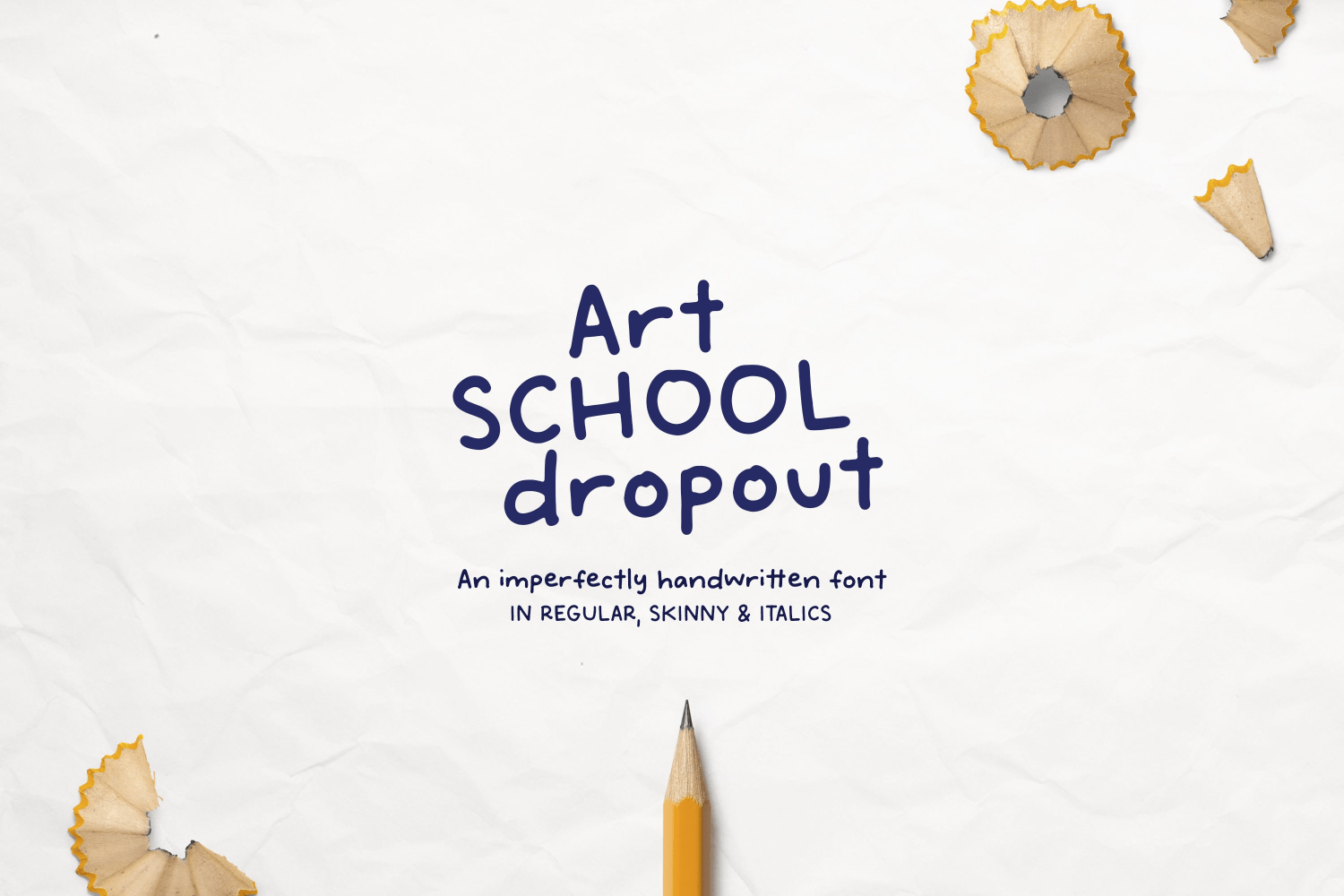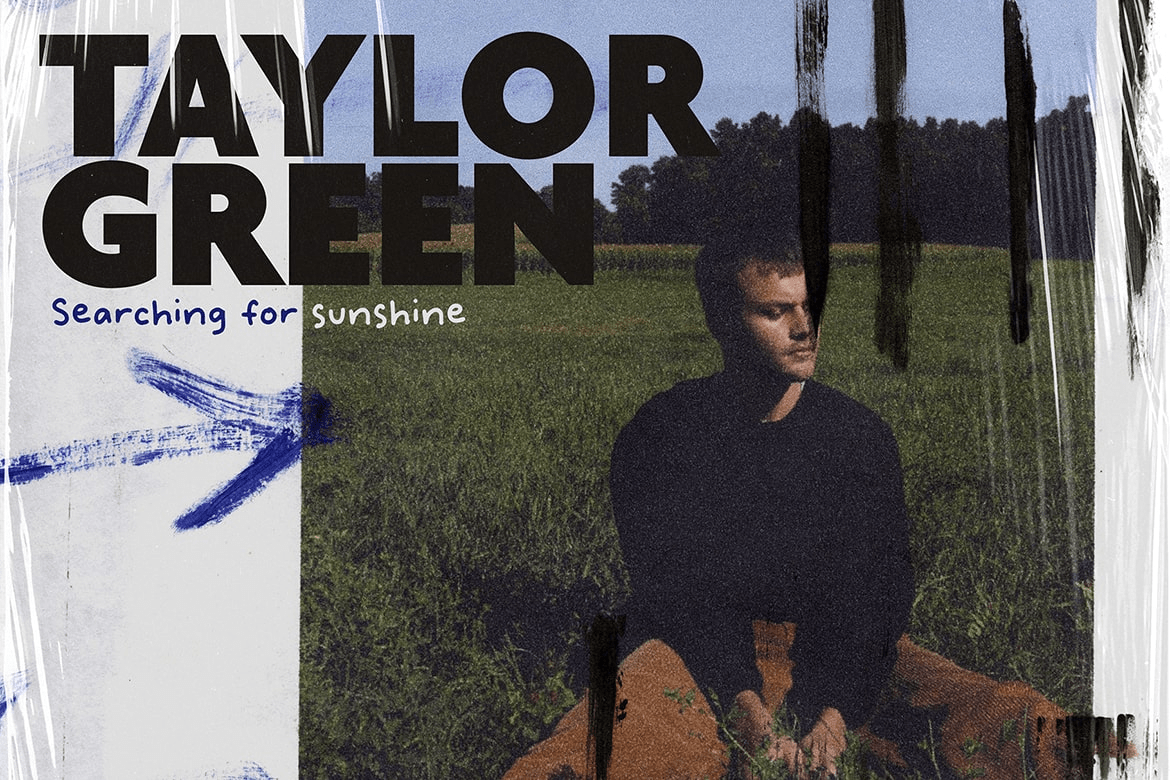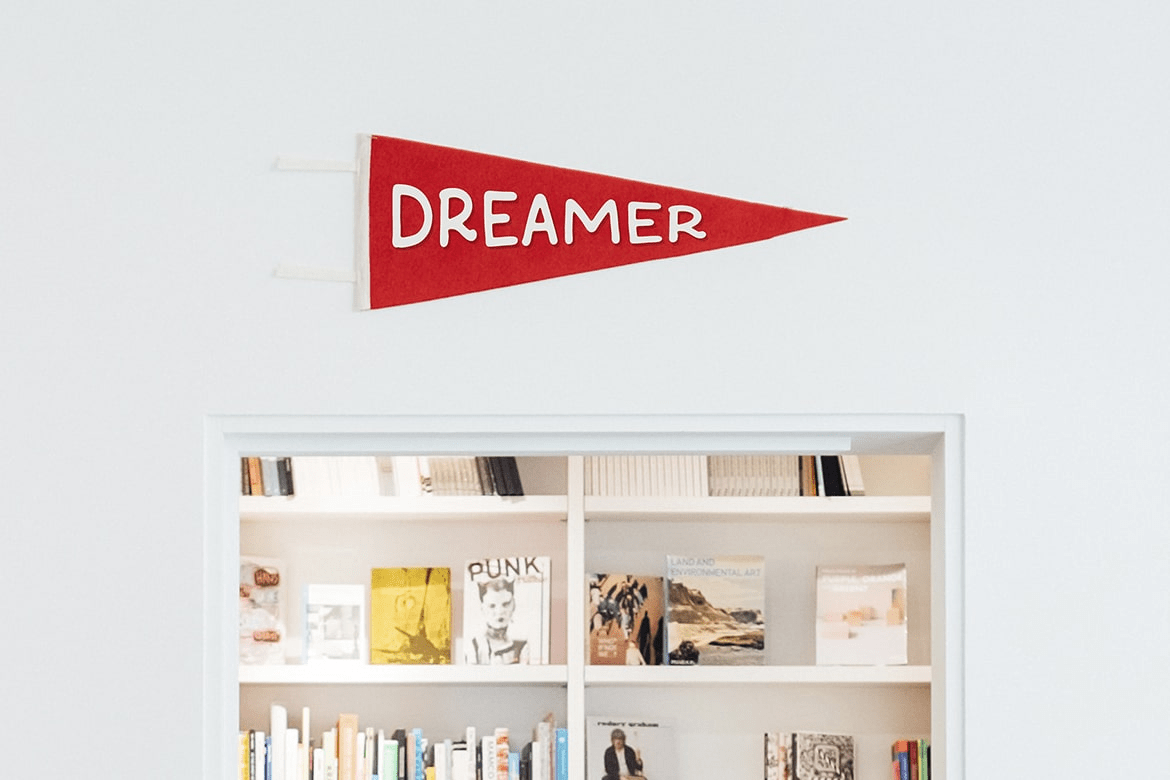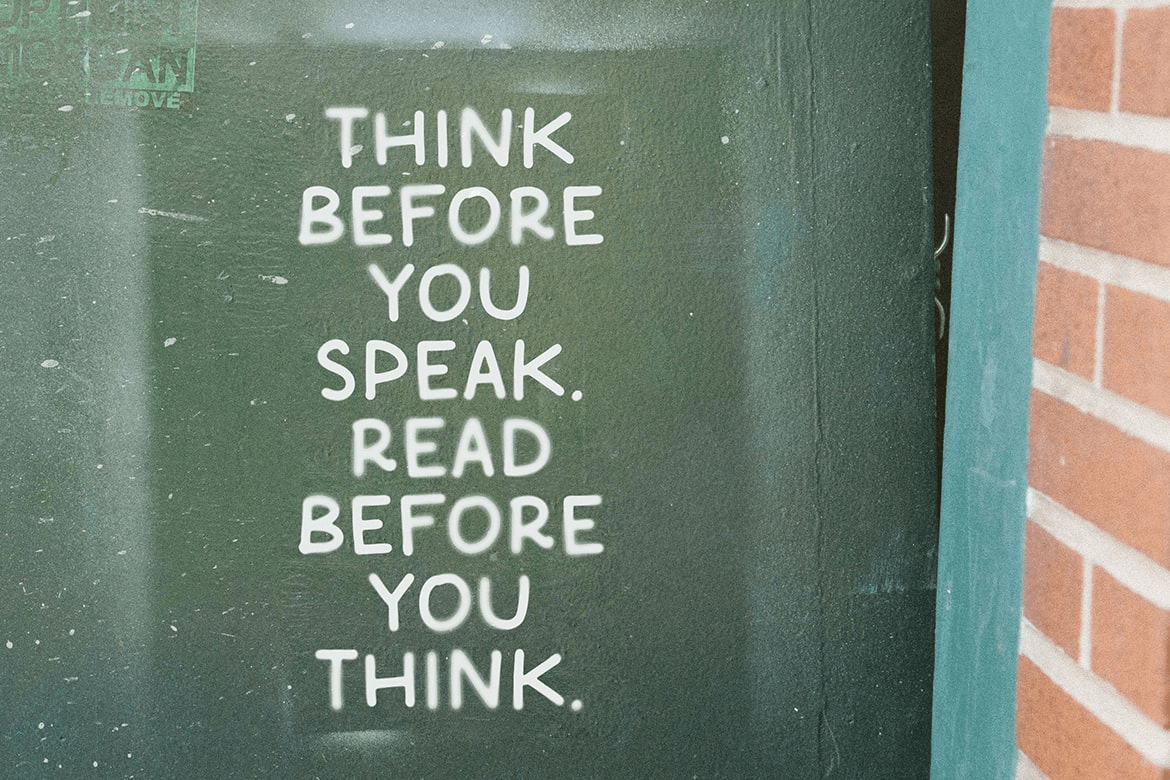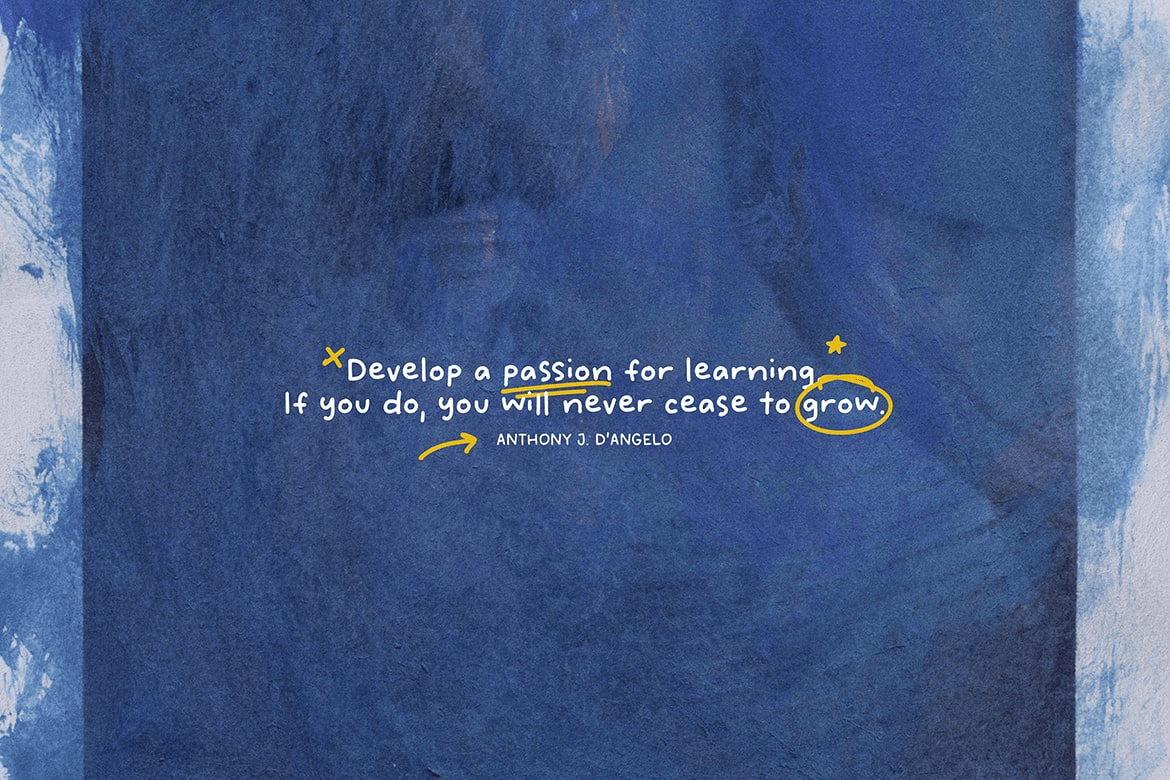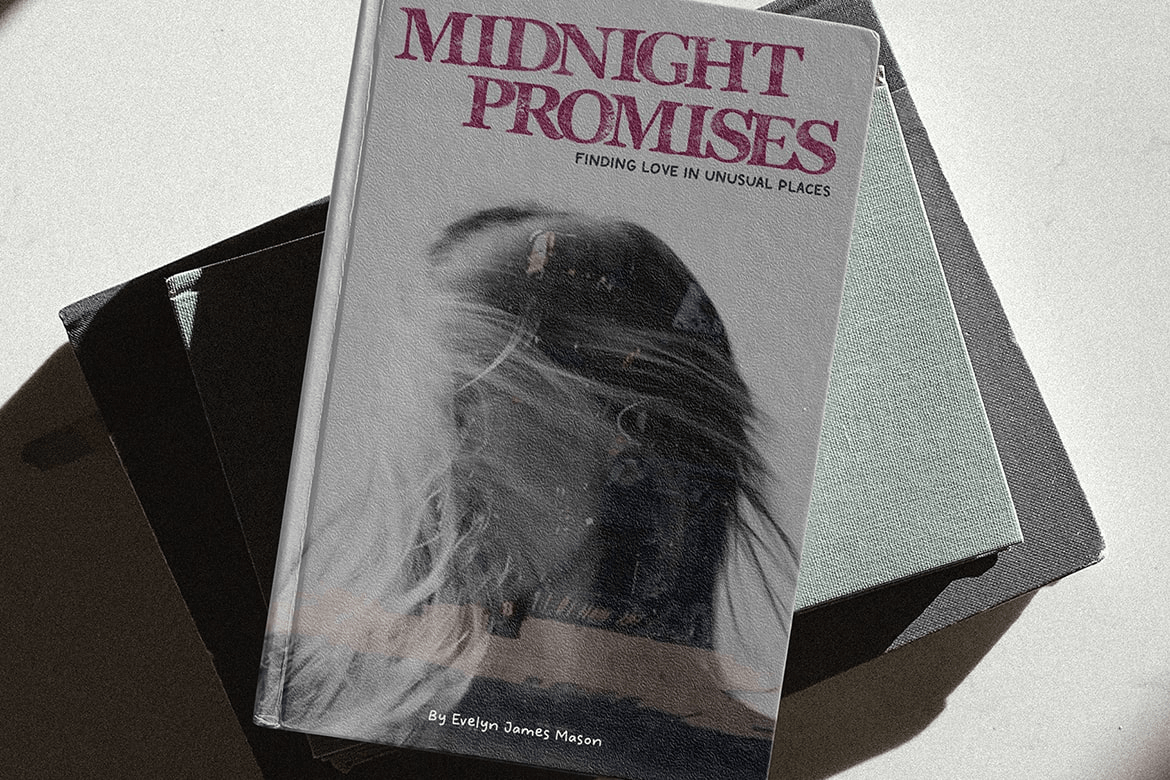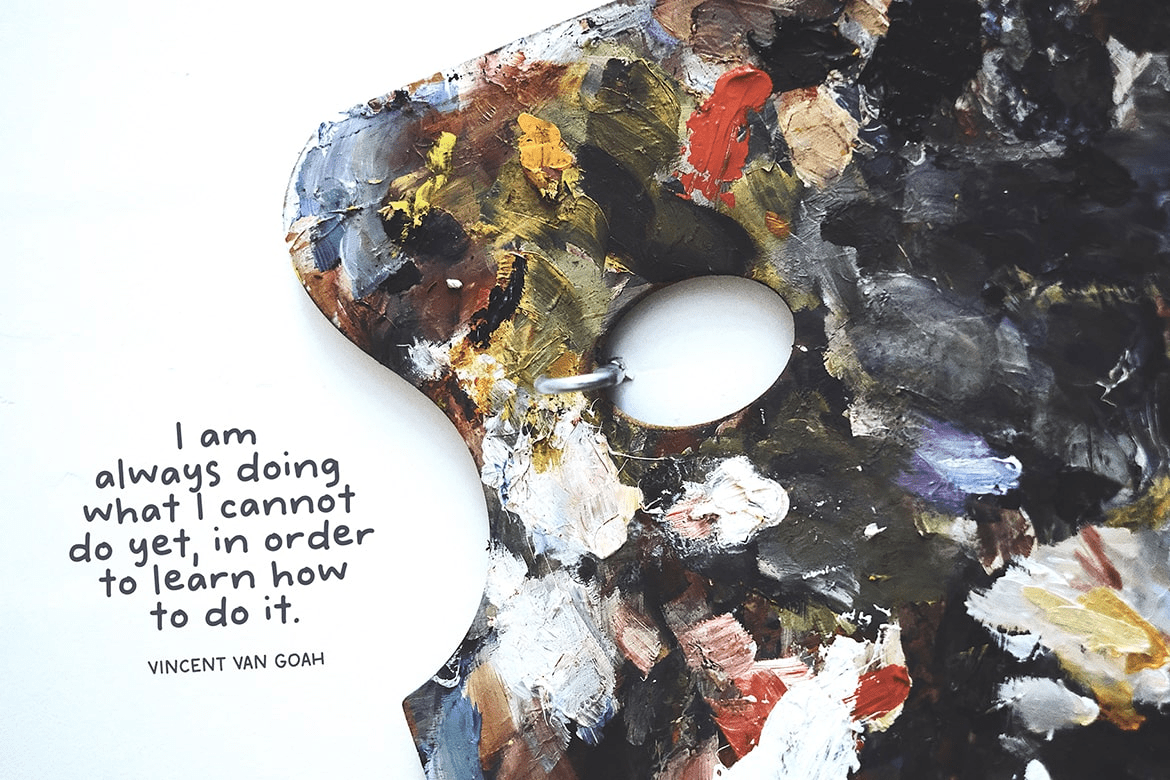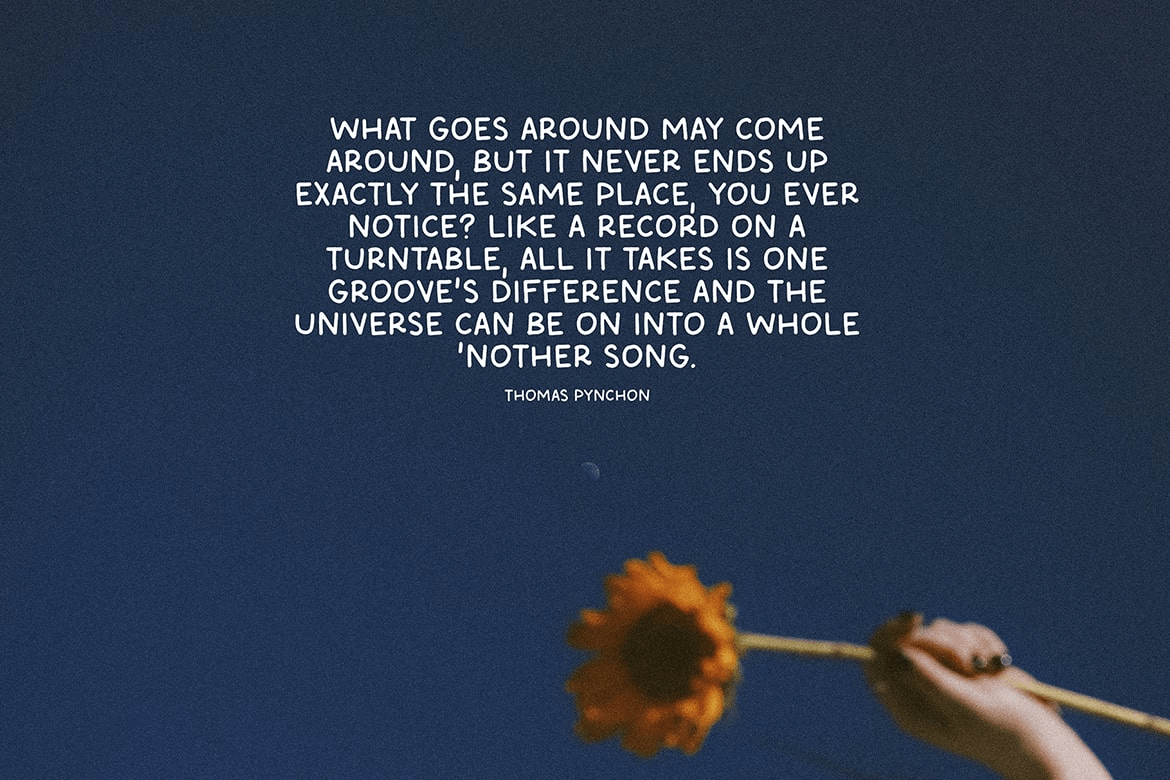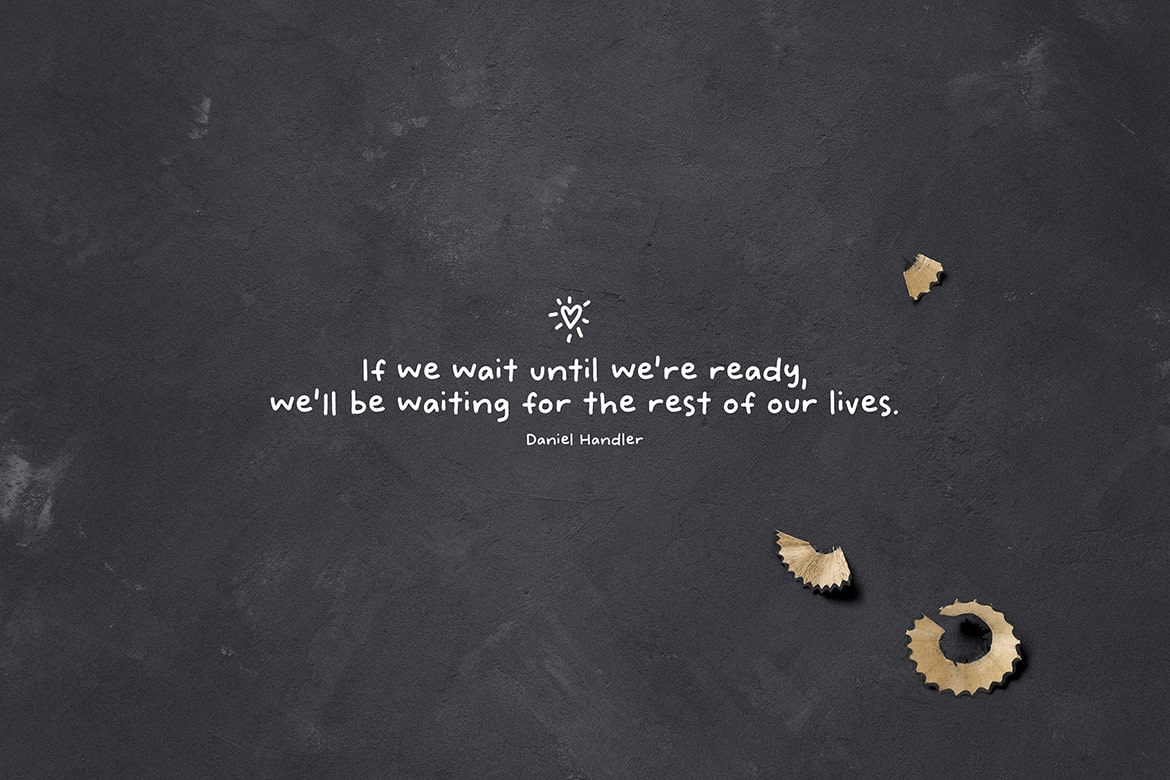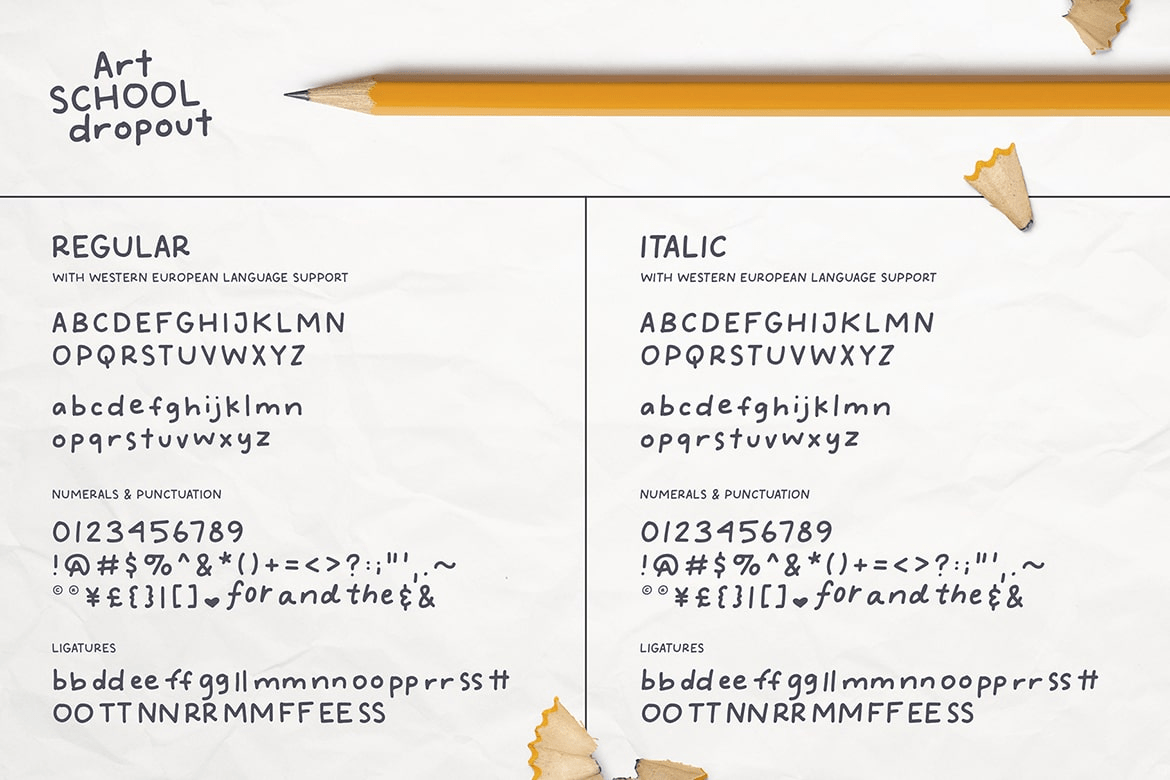
Art School Dropout
Font Family by Callie Rian & Co
Introducing, Art School Dropout, a smooth, handmade sans-serif with upper and lowercase characters in 4 versions, including 52 doodle elements. Looks super adorable on social media posts, books, magazine subtext, greeting cards, stickers & more!